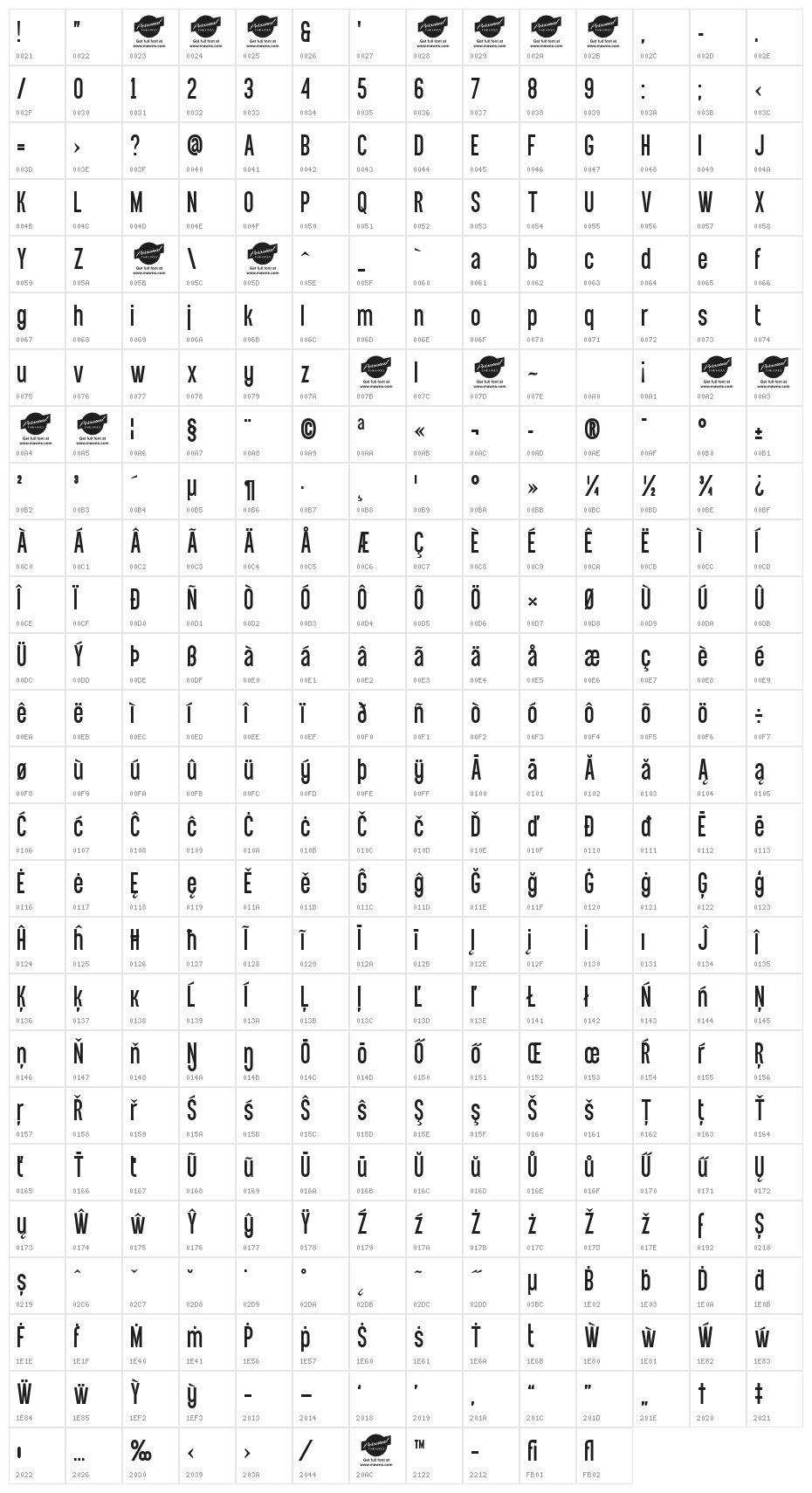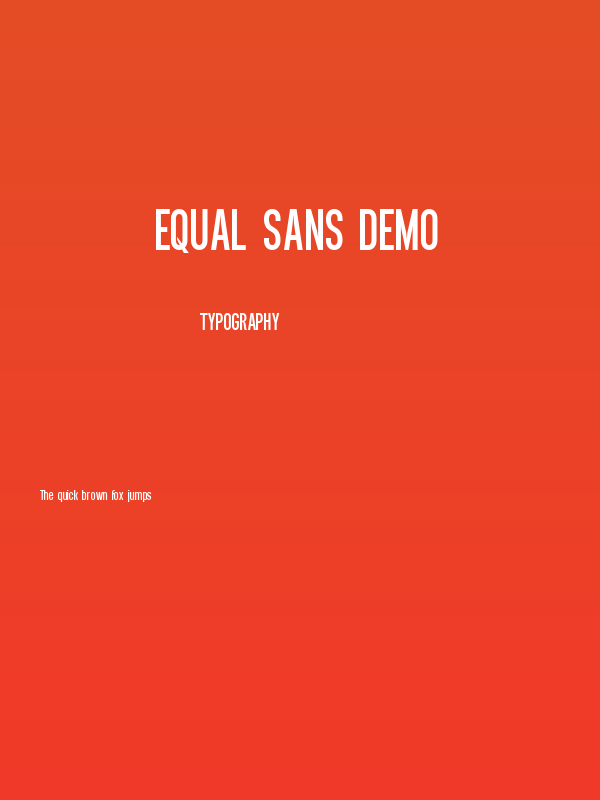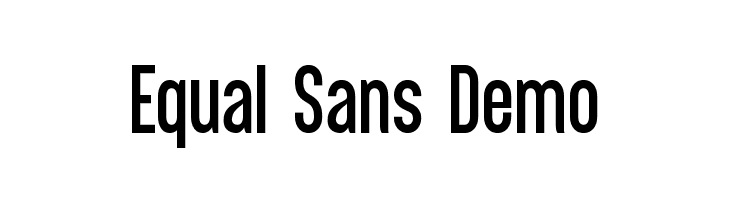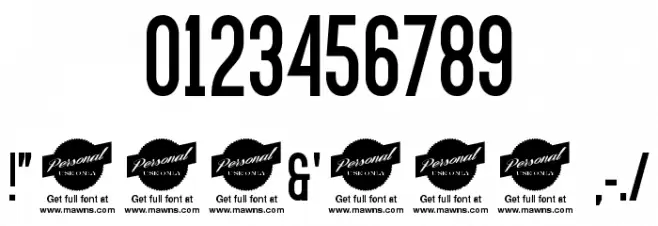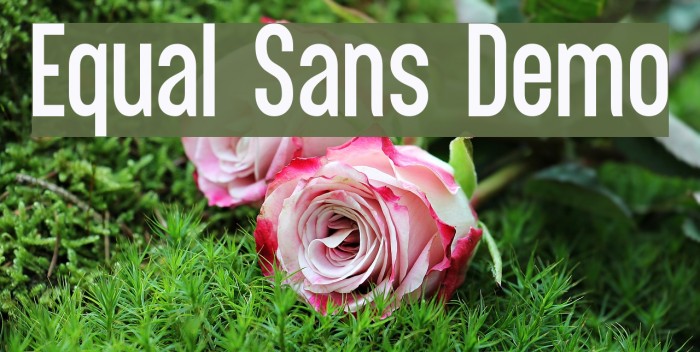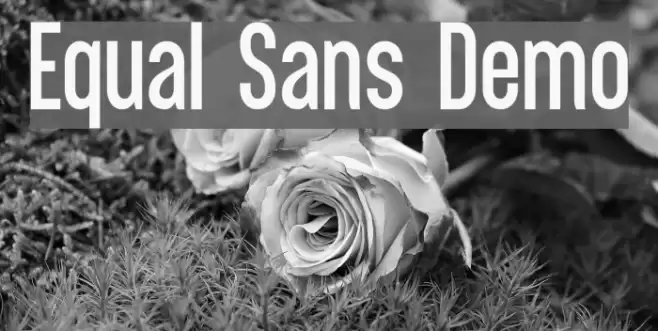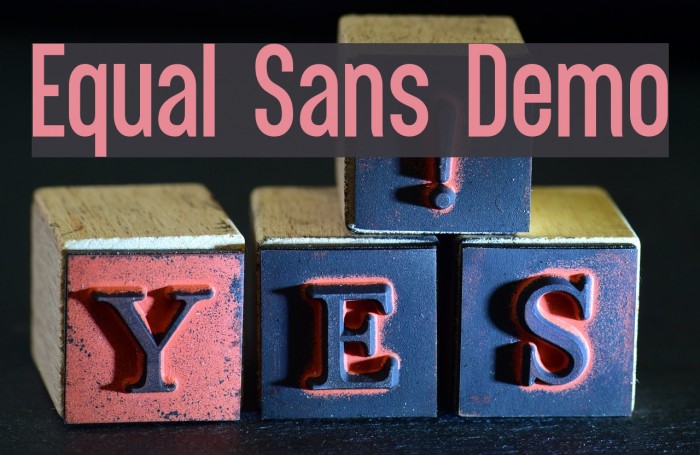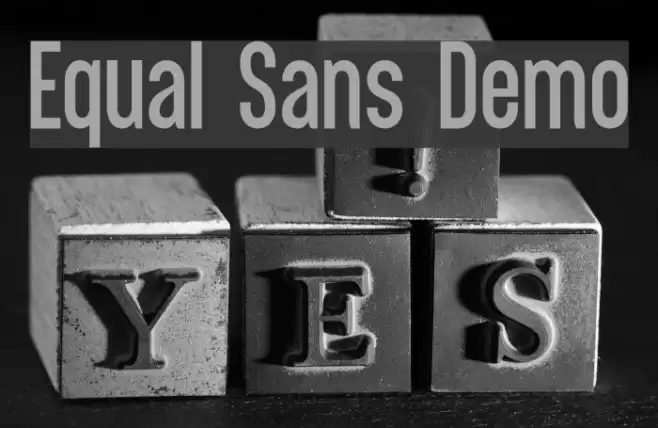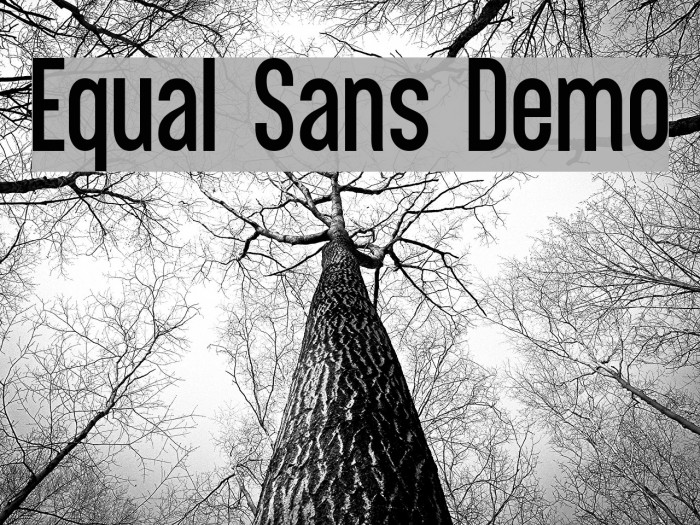
Equal Sans Demo Font
Equal Sans Demo Description
This font features a clean and modern sans-serif design with a uniform stroke width, providing a balanced and harmonious appearance. The characters are well-proportioned, offering excellent readability across both uppercase and lowercase letters. The numerals are clear and distinct, making them suitable for various applications. The font's simplicity and elegance make it versatile for a wide range of design projects. Special characters are included, maintaining the same stylistic consistency as the alphanumeric characters.
| Use Case | Headlines, Body text, Logos |
| Proposed Projects | Ideal for branding, web design, advertising, and editorial layouts due to its clean and versatile style. |